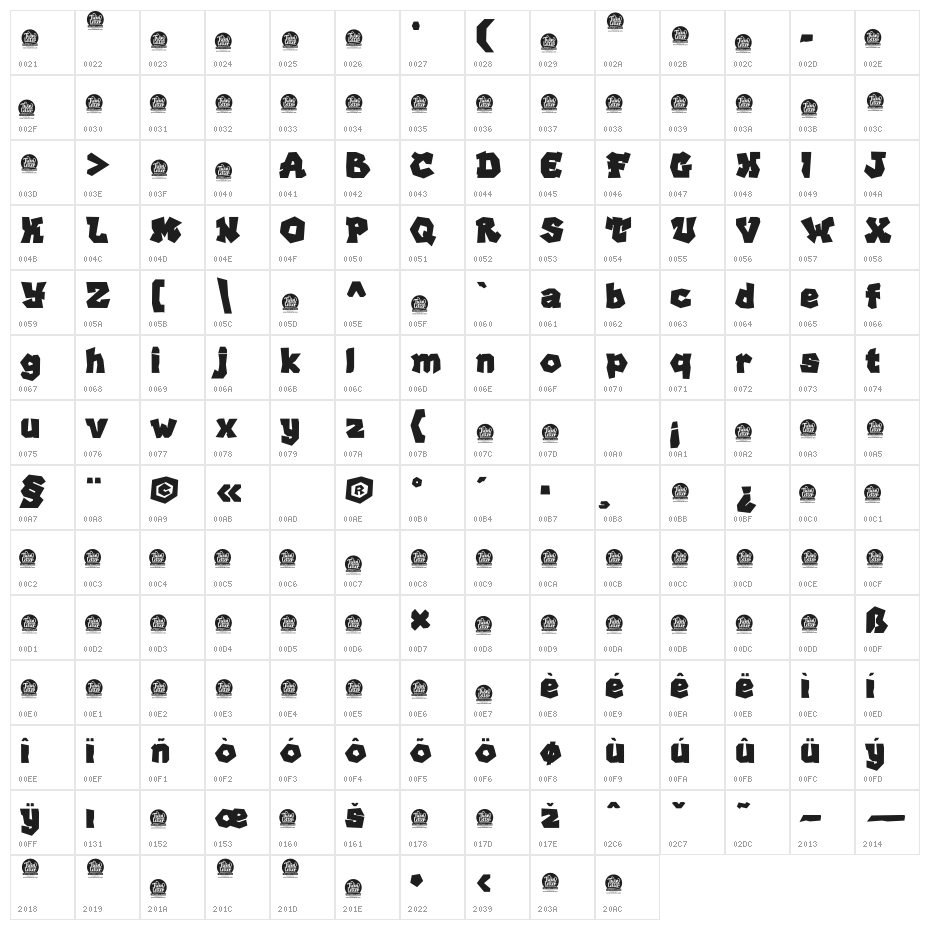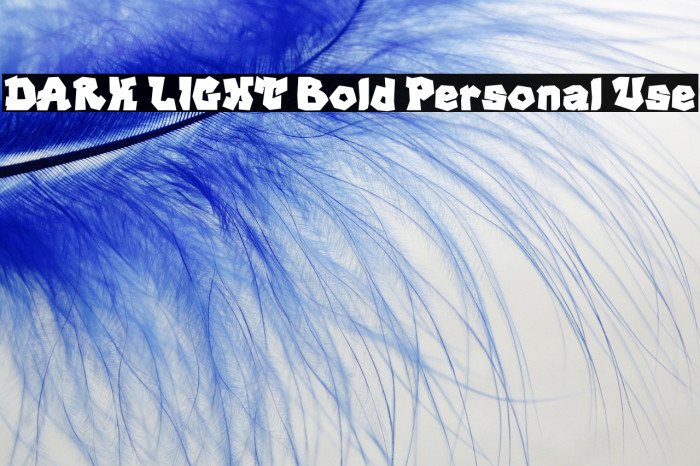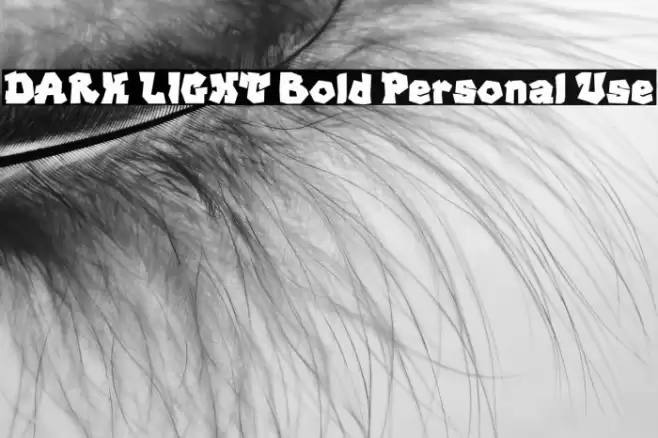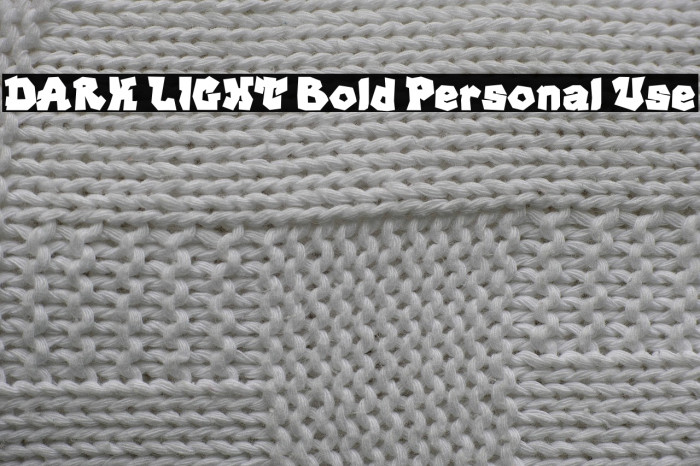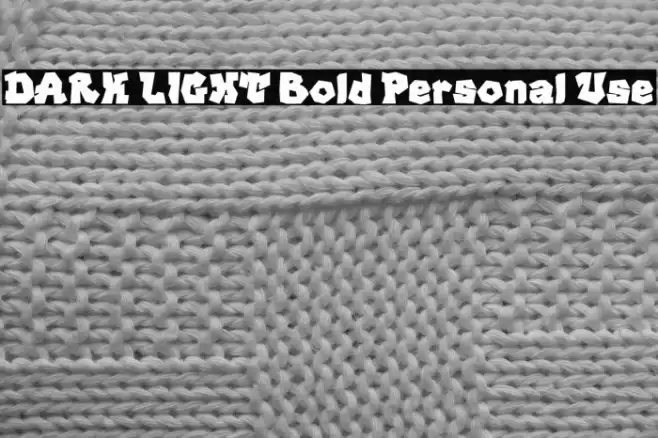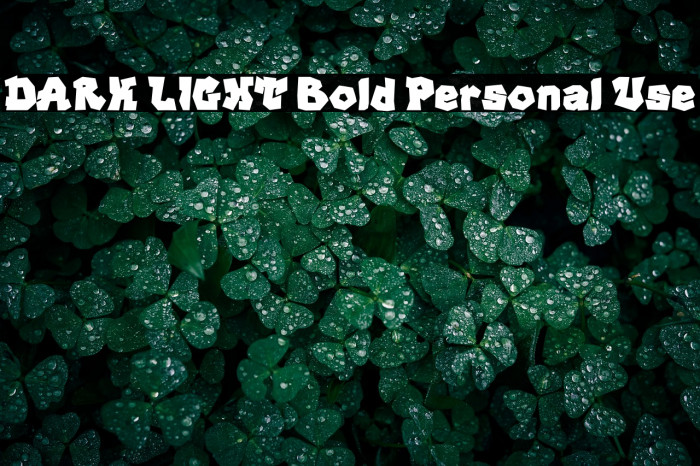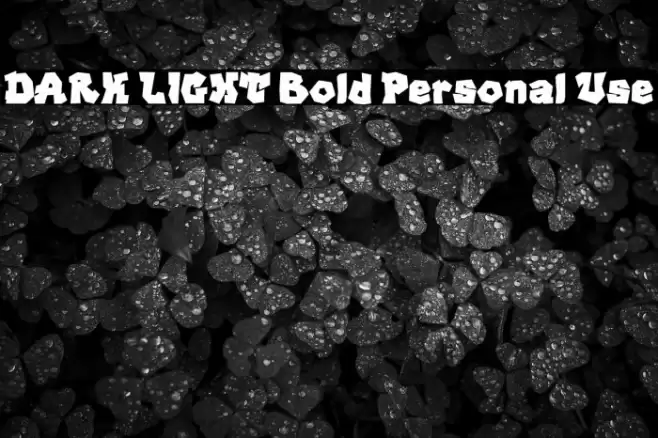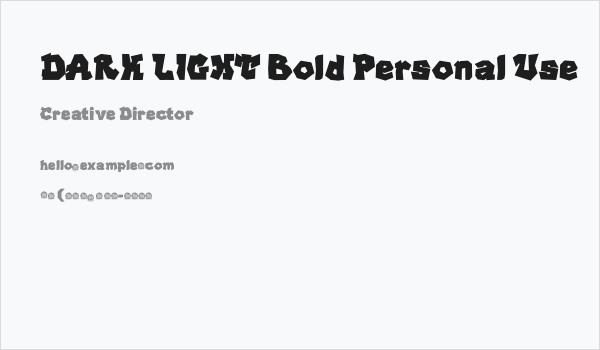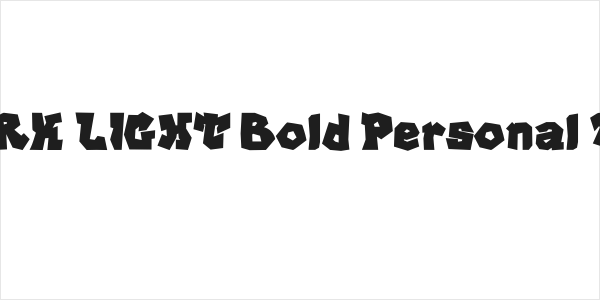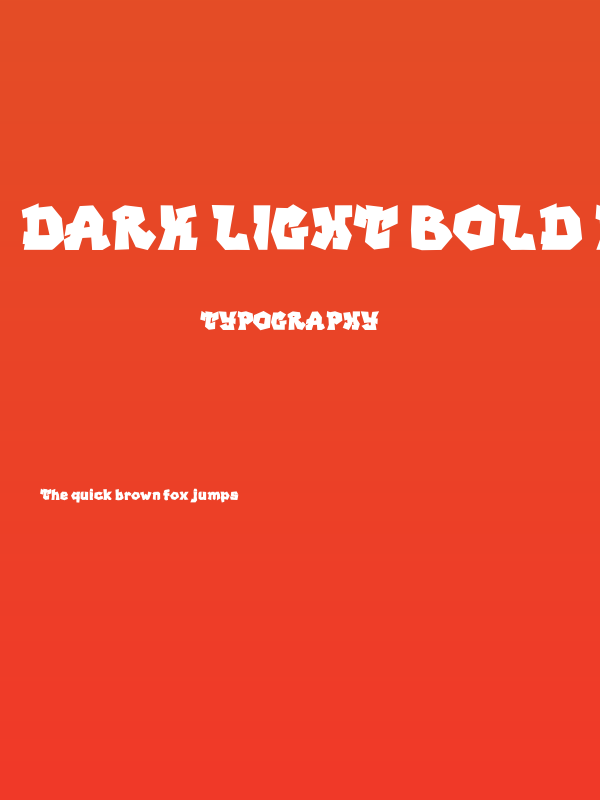
DARK LIGHT Bold Personal Use Font
DARK LIGHT Bold Personal Use Description
This font features a bold, jagged style with sharp angles and a strong presence. The uppercase and lowercase letters maintain a consistent, edgy design that gives off a rebellious and energetic vibe. The characters are tightly spaced, enhancing the compact and impactful look. The font's unique style makes it stand out, with each letter having a distinct, almost geometric appearance. The numbers and special characters follow the same bold and angular design, ensuring uniformity across all glyphs. This font is perfect for projects that require a striking and unconventional look.
| Proposed Projects | Ideal for music album covers, posters, branding for edgy products, and any design needing a bold statement. |